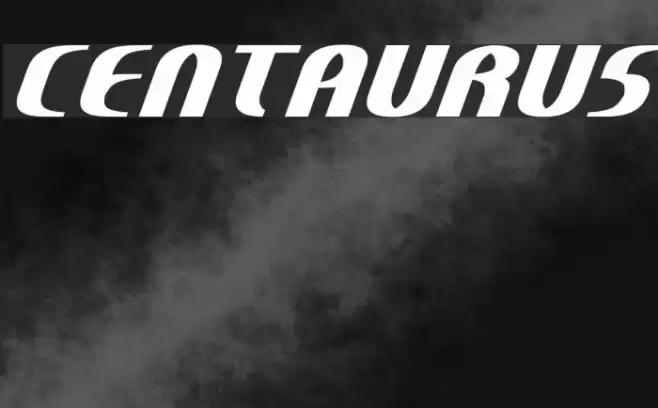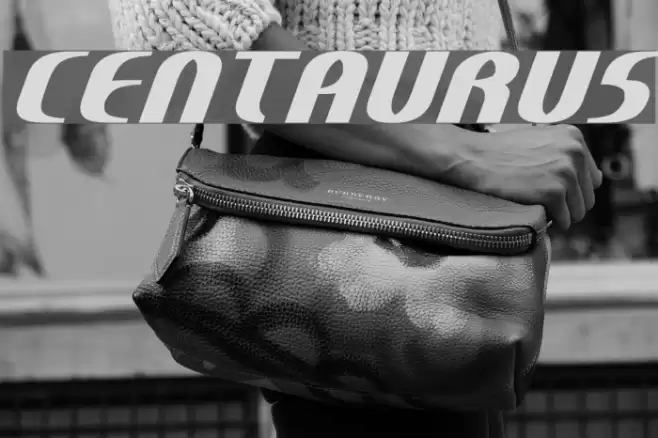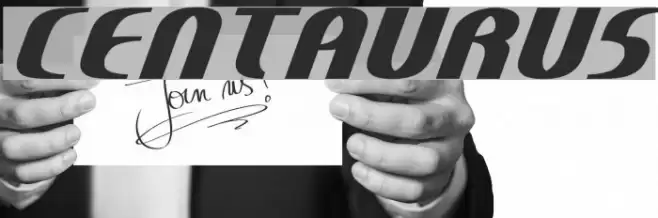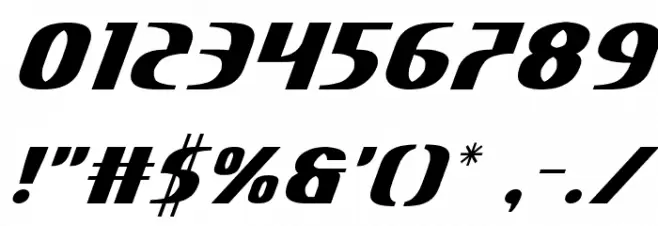
Centaurus Font
Centaurus Description
This font features a bold and dynamic style with a forward-leaning slant, giving it a sense of motion and energy. The characters are thick and robust, with a distinct italicized appearance that enhances its modern and sporty aesthetic. The uppercase and lowercase letters maintain a consistent style, with smooth curves and sharp edges that create a striking visual impact. The numerals are equally bold, ensuring readability and consistency across different uses. Special characters are designed to match the overall style, making this font versatile for various applications.
A bold, italicized font with a dynamic and modern style from Uncategorized fonts.
- Proposed Projects: Ideal for sports branding, dynamic posters, automotive advertisements, and modern logo designs.